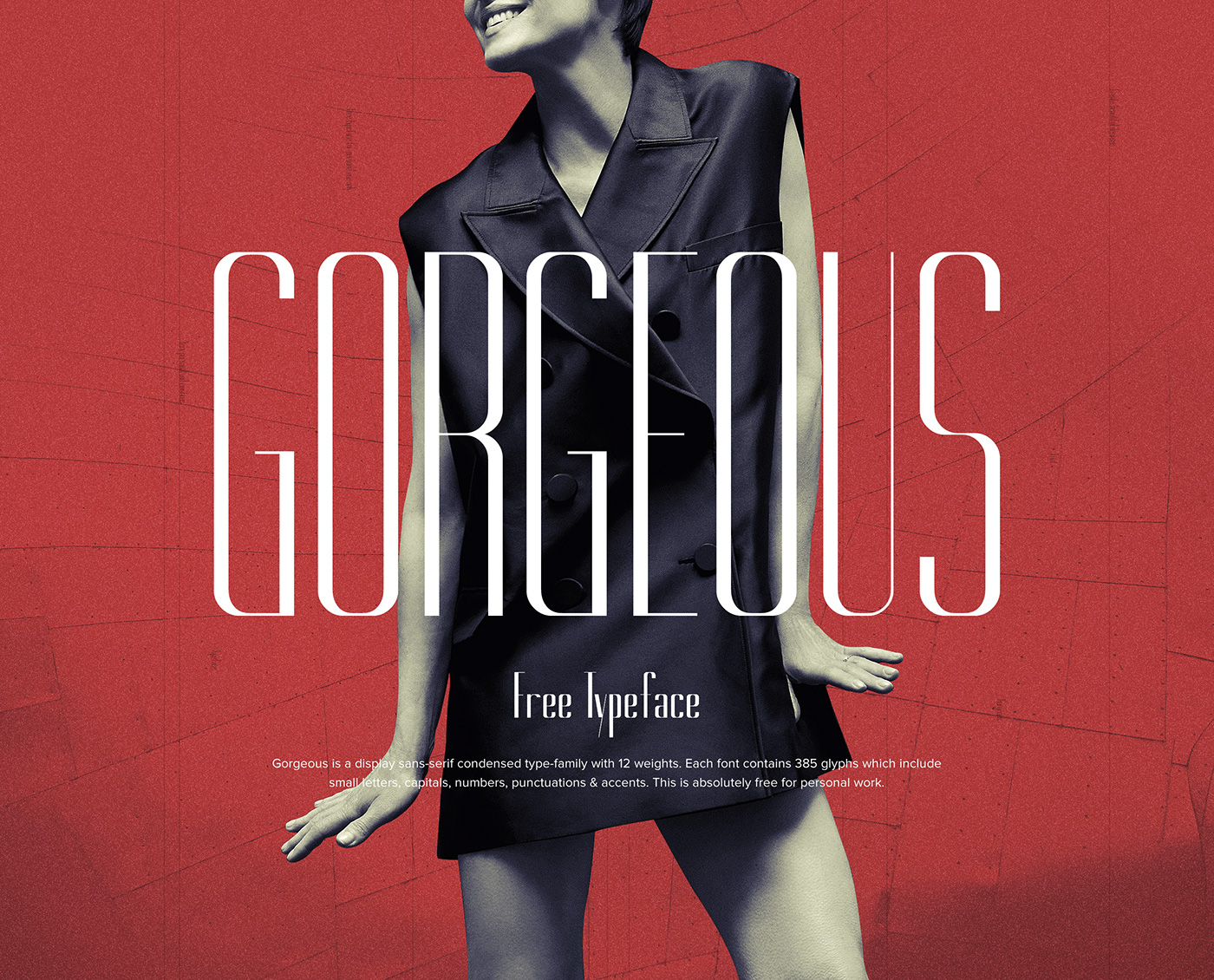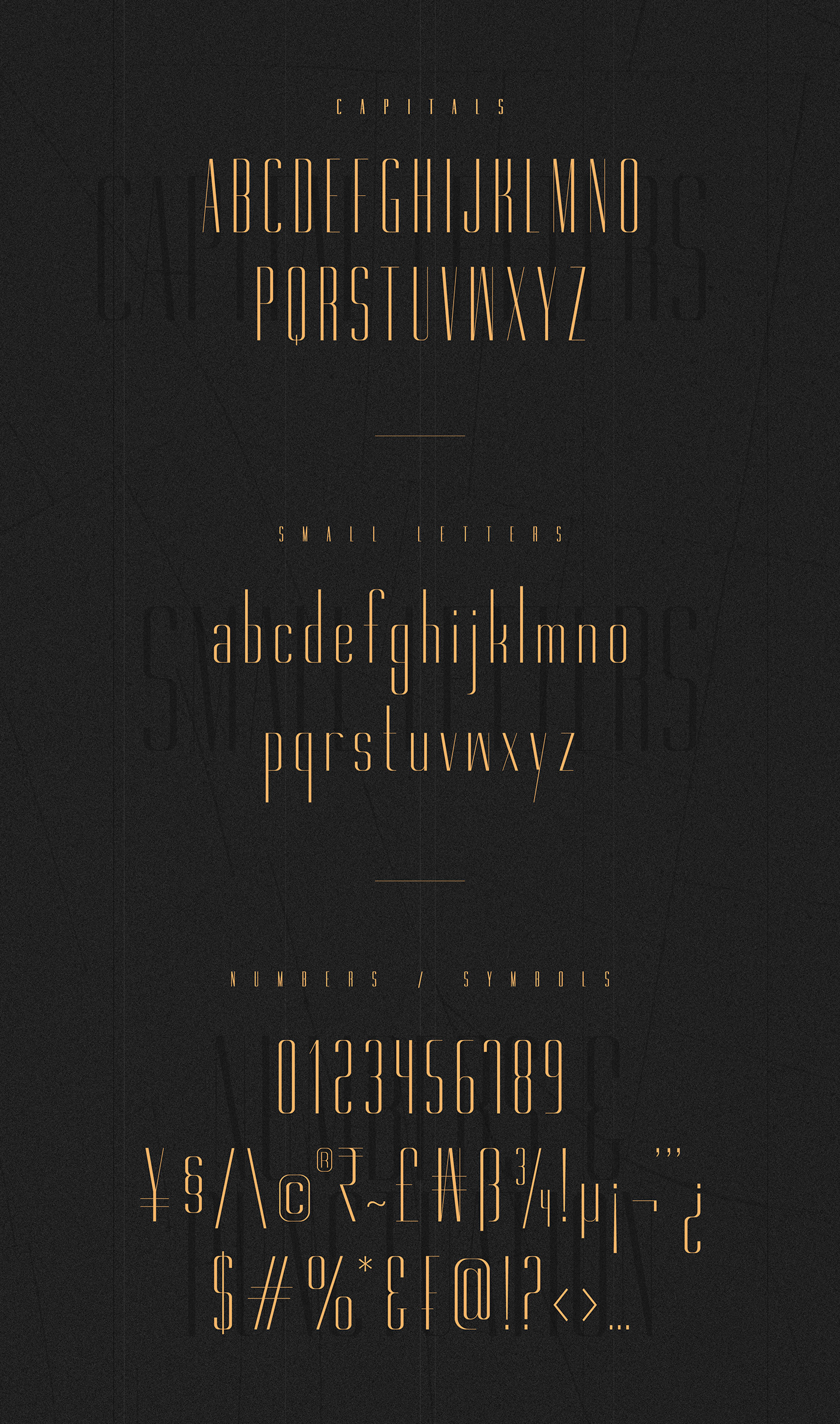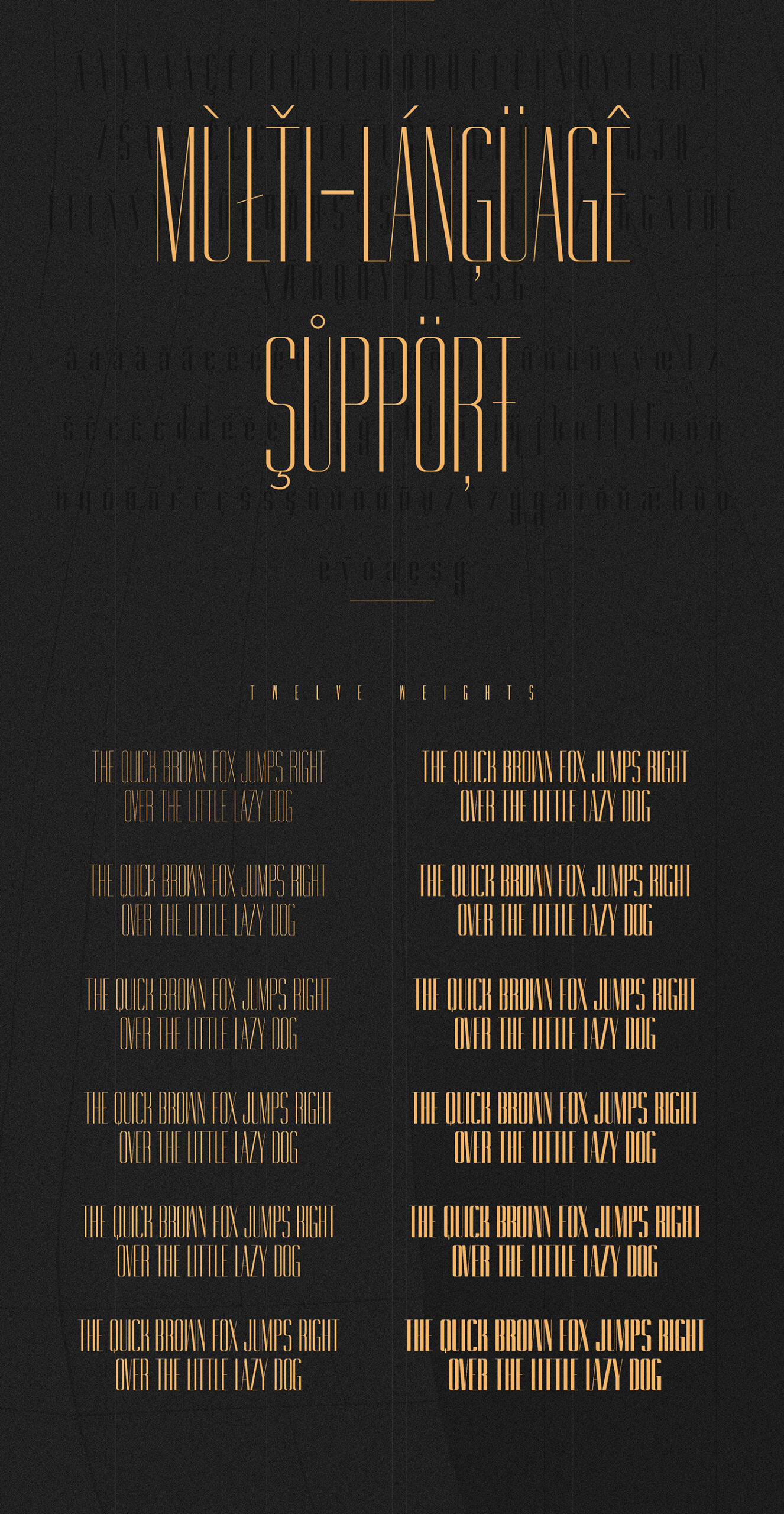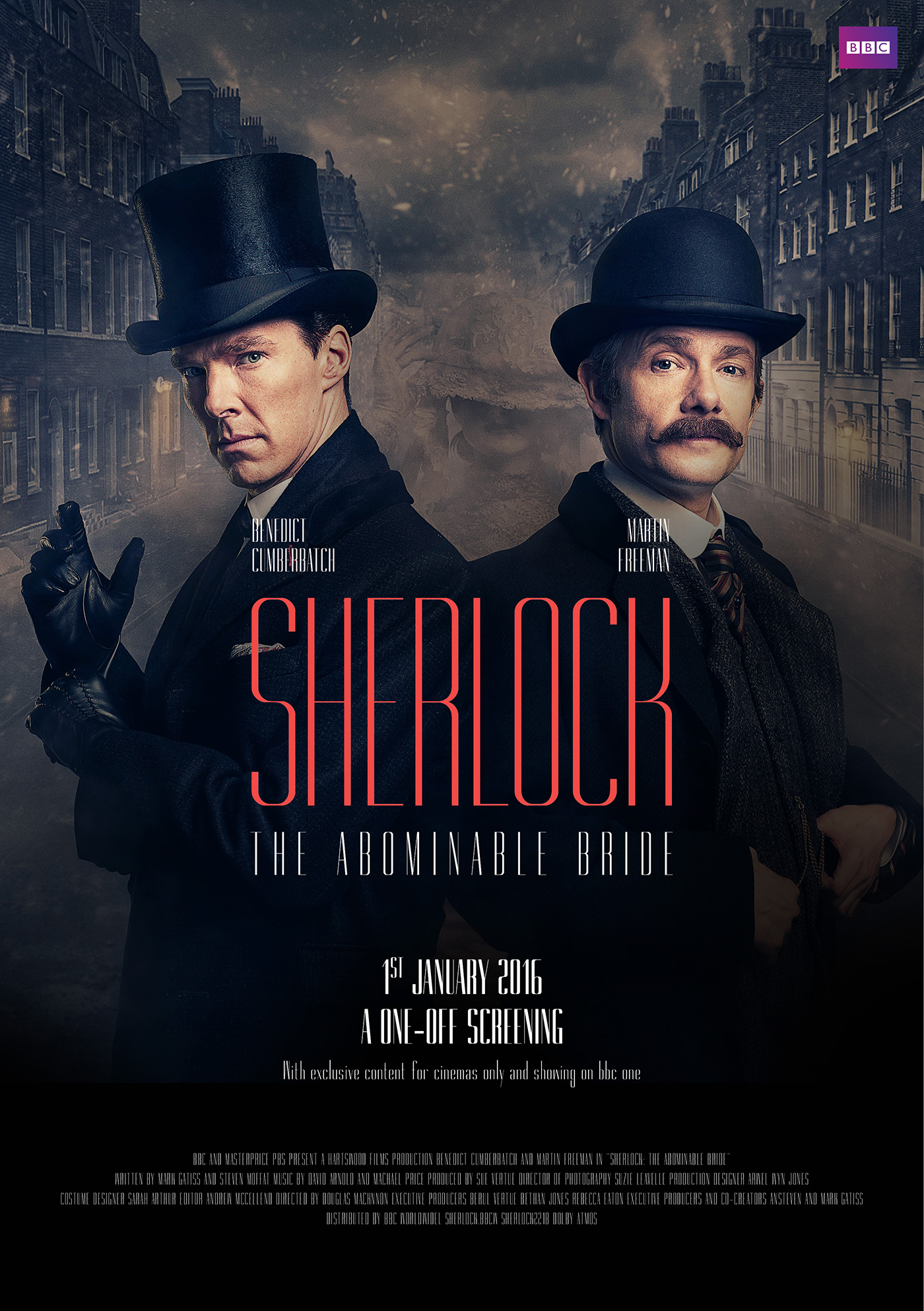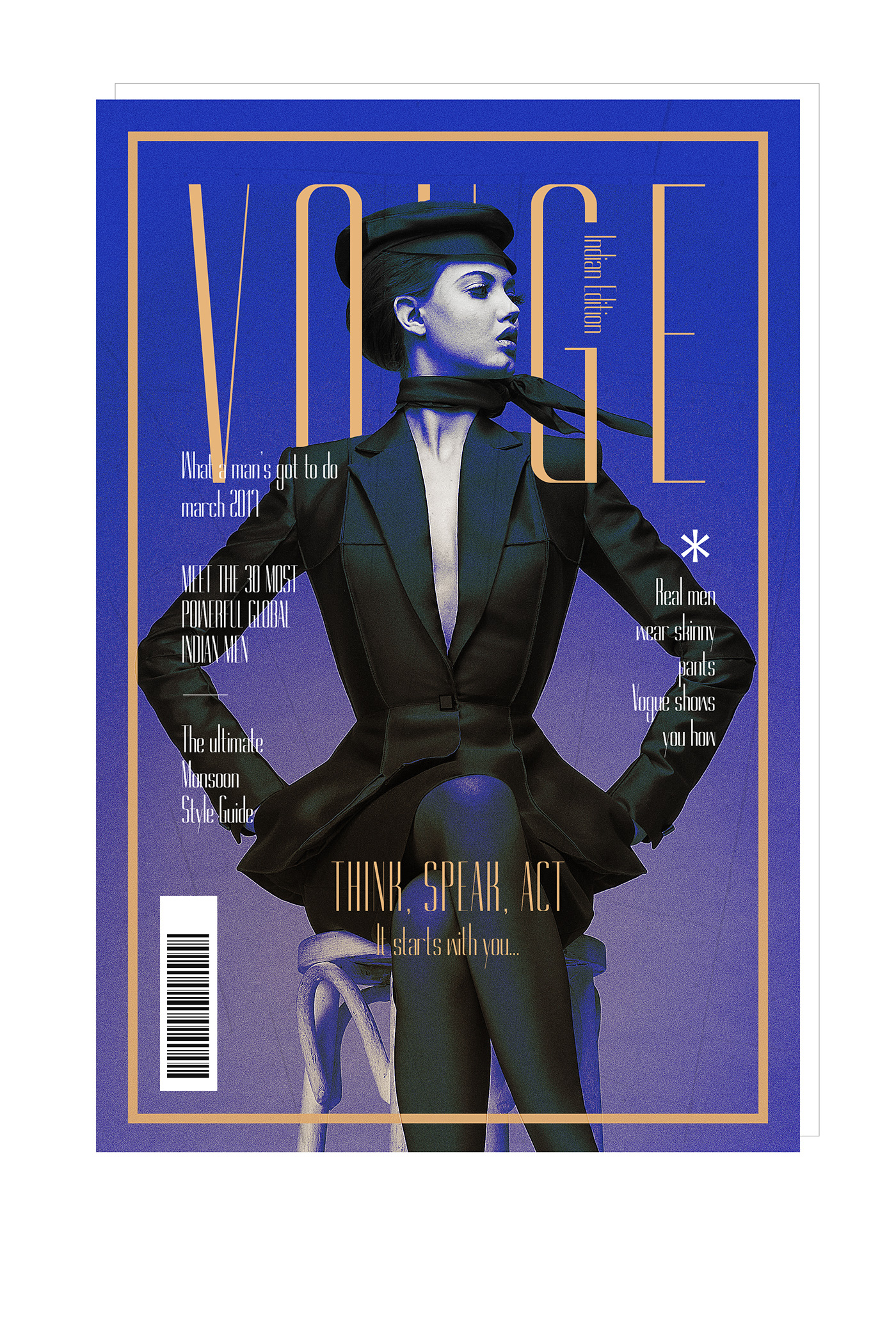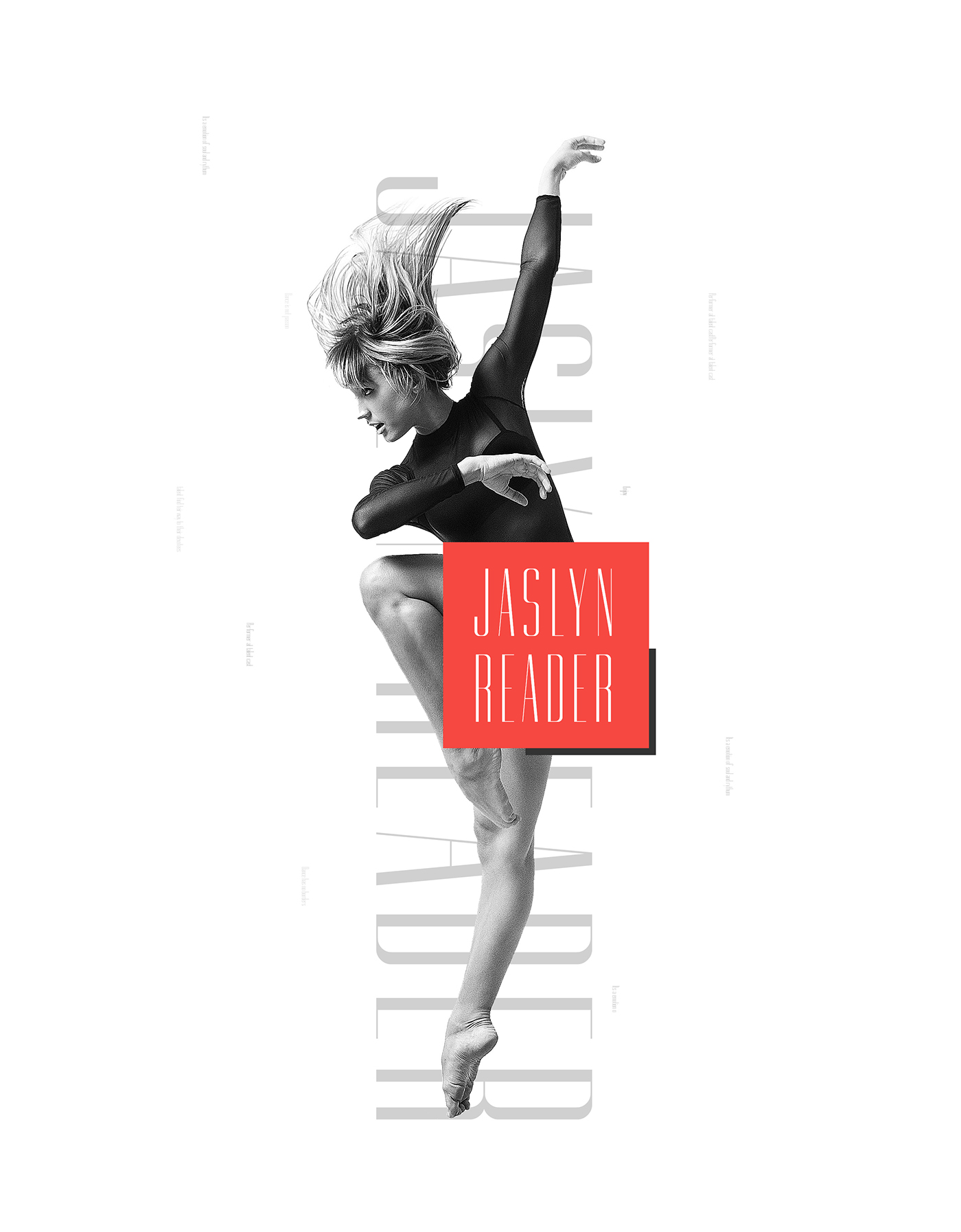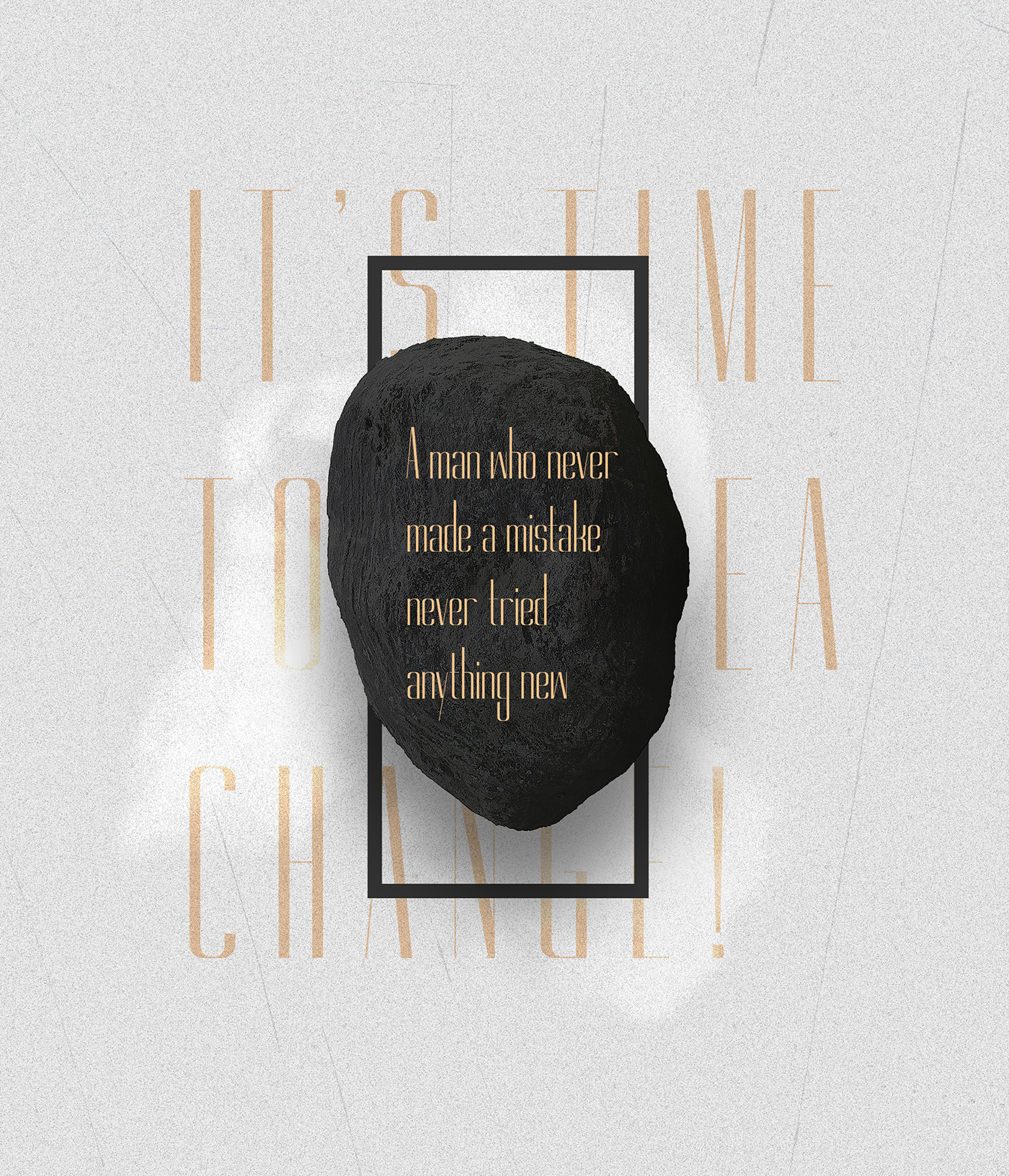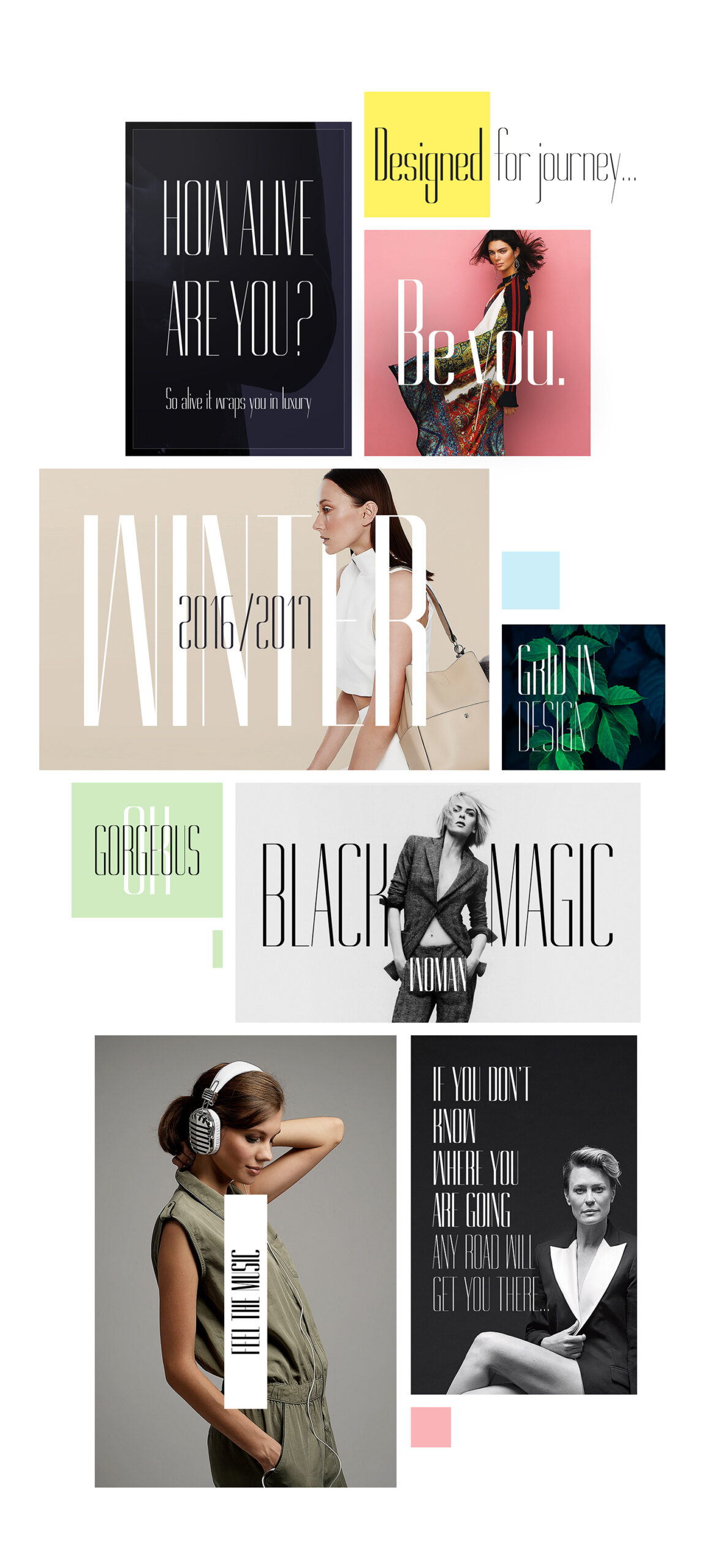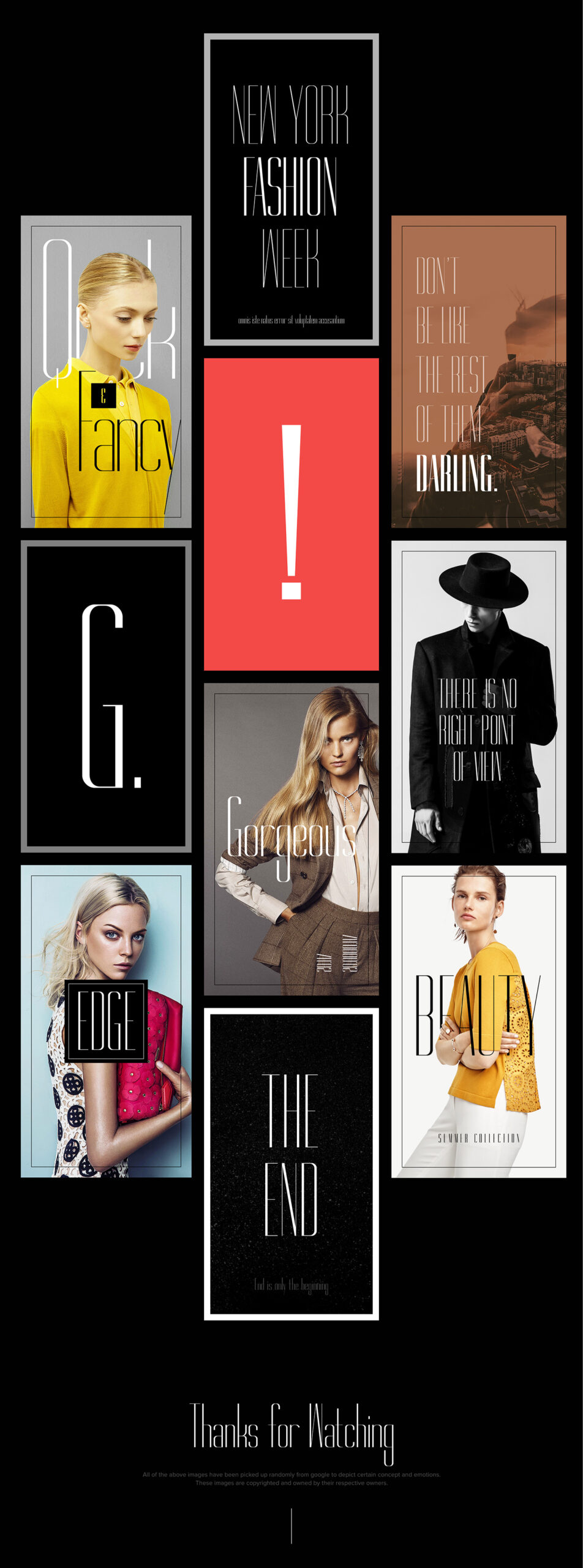
Gorgeous is a display sans-serif condensed family with 12 weights. It was designed by Rajesh Rajput from India. Each font contains 385 glyphs with small letters, capitals, numbers, punctuations & accents. Gorgeous is absolutely free for personal work.